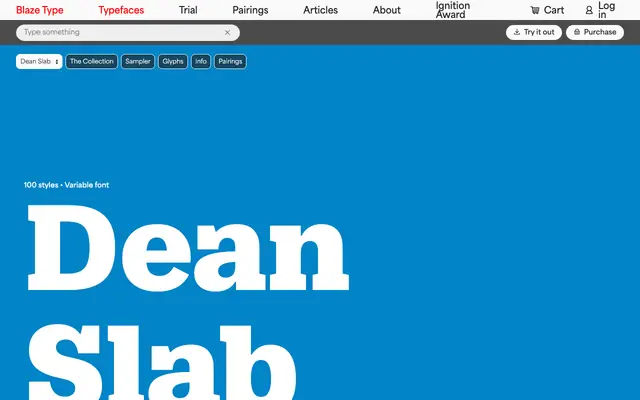
Dean Slab
A variable slab serif spanning five widths from Compressed to Wide, with nine weights and matching italics across all 100 styles.
Five width families running from Compressed through Condensed, Normal and Extended to Wide give this slab serif an unusually broad palette for layout work. Each family carries nine weights from Thin to Black, all with italics, totalling 100 styles available as variable fonts. The range suits editorial and branding contexts where a single typeface needs to flex across very different column widths and typographic registers.
A slab serif with consistent stroke weight and bracketed serifs across five width variants, from Compressed to Wide, spanning nine weights with italics throughout.